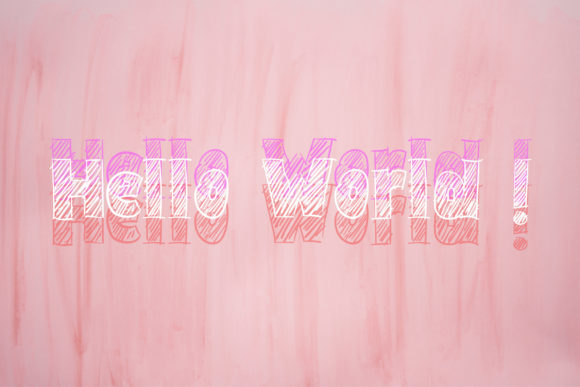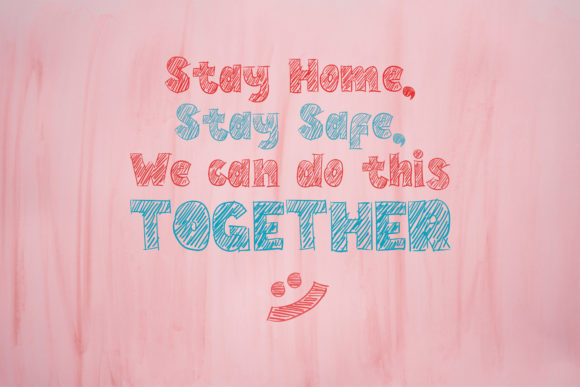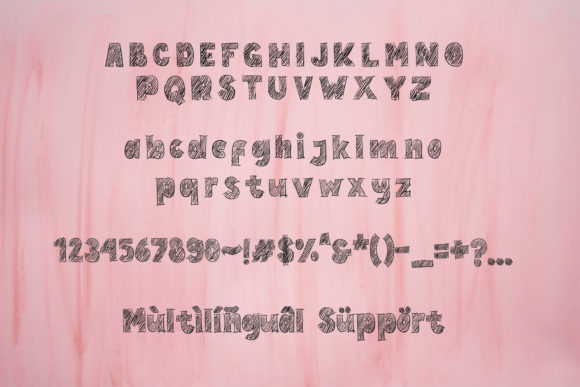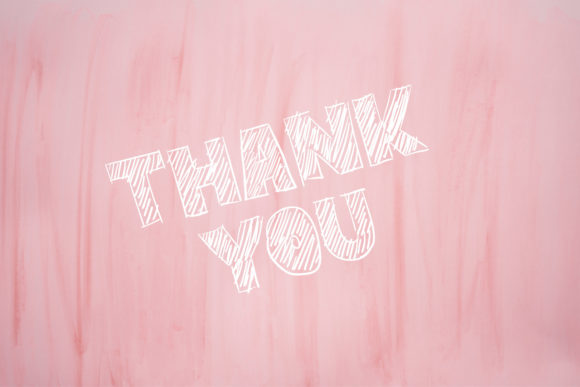
Introducing Hand Write Font: The Perfect Choice for Whimsical Designs
Are you a designer or crafter looking for a unique and playful font to add a personal touch to your projects? Look no further than Hand Write Font, a cute, thick lettered, and distinctive display font that’s perfect for children-themed designs. When paired with bright colors, this font is sure to capture the attention of your audience and leave a lasting impression.
What Makes Hand Write Font So Special?
Hand Write Font is a one-of-a-kind typeface that’s been carefully crafted to bring a sense of whimsy and fun to your designs. Its thick, bold letters are reminiscent of handwritten text, giving your projects a personal and approachable feel. Whether you’re creating posters, flyers, or digital graphics, this font is sure to add a touch of personality to your work.
Perfect for Children-Themed Designs
One of the standout features of Hand Write Font is its suitability for children-themed designs. The font’s playful and innocent feel makes it an ideal choice for projects aimed at kids, such as:
- Children’s party invitations and decorations
- Kids’ educational materials and worksheets
- Toys and product packaging
- Children’s book titles and illustrations
Why Pair Hand Write Font with Bright Colors?
When combined with bright colors, Hand Write Font becomes a truly unbeatable combination. The font’s bold, thick letters provide the perfect canvas for vibrant hues that can help your designs pop. Some popular color combinations to try with Hand Write Font include:
- Pastel pink and blue for a soft, feminine look
- Bright yellow and orange for a bold, energetic feel
- Green and purple for a fun, playful vibe
Tips for Using Hand Write Font in Your Designs
To get the most out of Hand Write Font, here are a few tips to keep in mind:
- Use it sparingly: While Hand Write Font is perfect for headlines and titles, it can be overwhelming if used excessively. Balance it with simpler fonts for body text.
- Experiment with colors: Don’t be afraid to try out different color combinations to find the one that works best for your design.
- Mix and match: Combine Hand Write Font with other fonts to create visual interest and add depth to your designs.
Hand Write Font in the World of Crafting
Hand Write Font isn’t just limited to digital designs. Crafters can also use this font to add a personal touch to their handmade projects, such as:
- Handmade cards and invitations
- DIY signs and banners
- Customized scrapbooking pages
- Hand-painted or stenciled designs on fabric or wood
| Font Name | Hand Write Font |
| Author | jadatype |
In conclusion, Hand Write Font is a versatile and charming typeface that’s perfect for designers and crafters looking to add a touch of whimsy to their projects. With its bold, thick letters and playful feel, this font is sure to delight children and adults alike. Whether you’re creating digital graphics or handmade crafts, Hand Write Font is an excellent choice for anyone looking to make a statement.